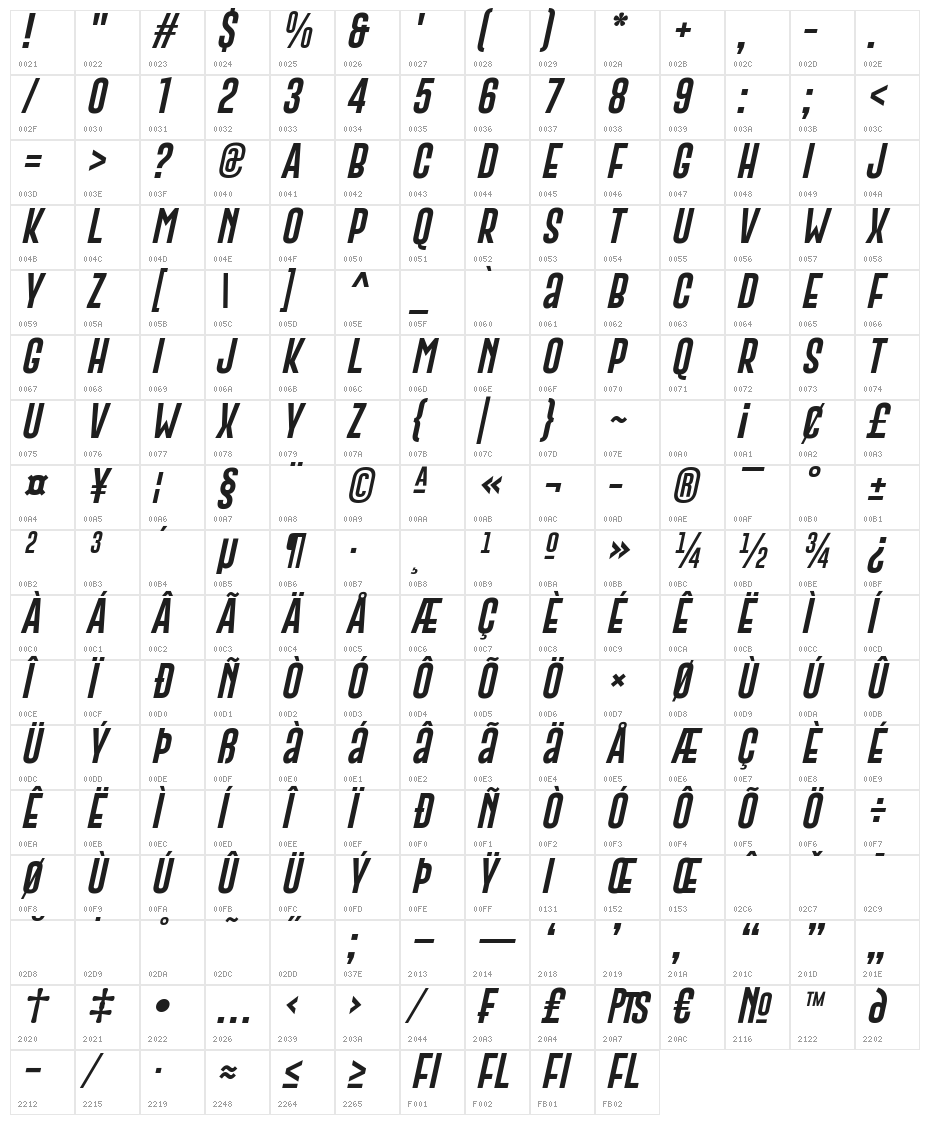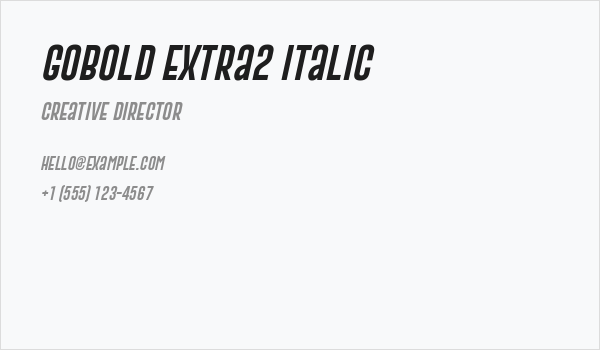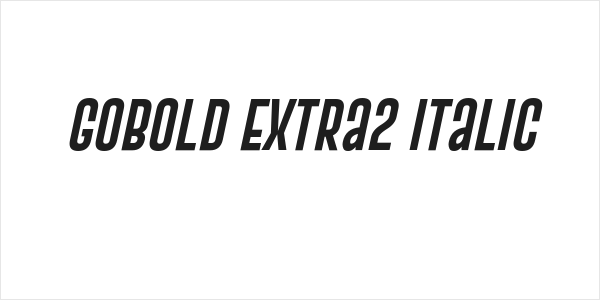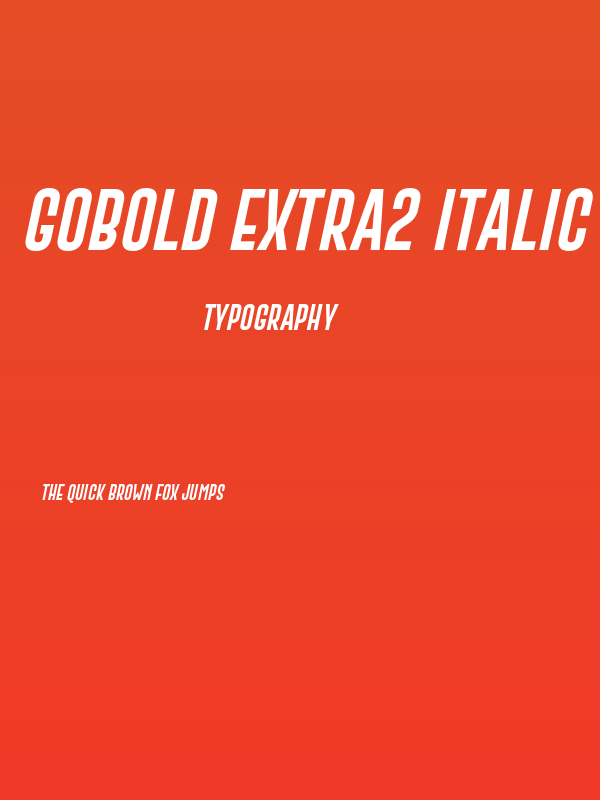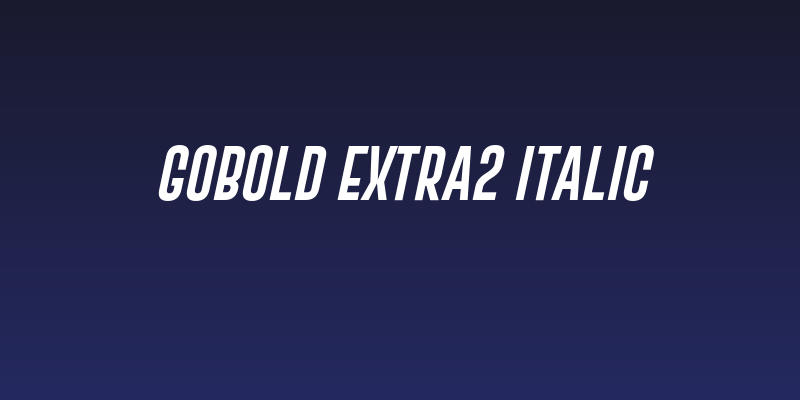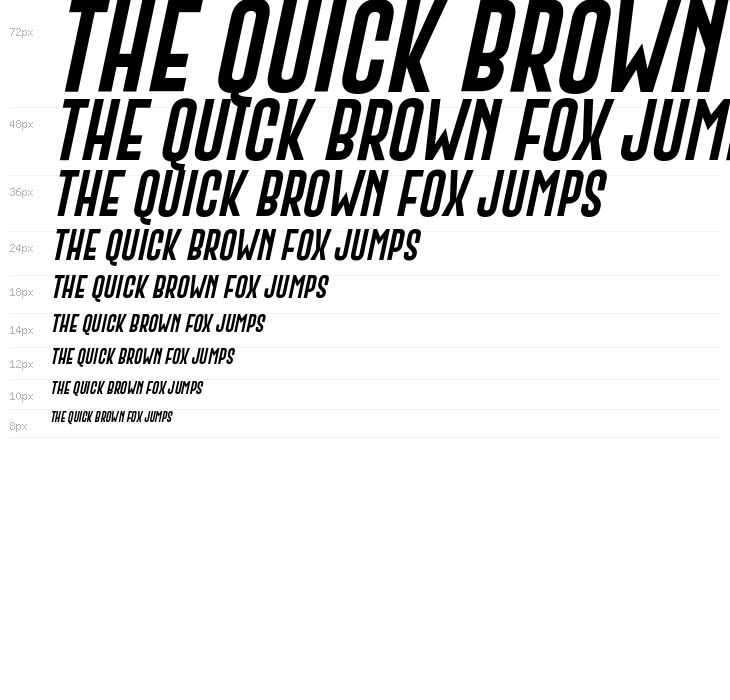
Gobold Extra2 Italic Font
Gobold Extra2 Italic Description
This font features a bold and dynamic style with a strong italic slant, giving it a sense of motion and energy. The characters are tall and narrow, contributing to a condensed appearance that maximizes vertical space. The strokes are thick and consistent, providing a robust and impactful presence. The uppercase and lowercase letters maintain a uniform height, enhancing readability while preserving the font's distinctive flair. The numerals and special characters are designed to match the overall aesthetic, ensuring a cohesive look across all text elements. This font's modern and assertive style makes it suitable for attention-grabbing designs.